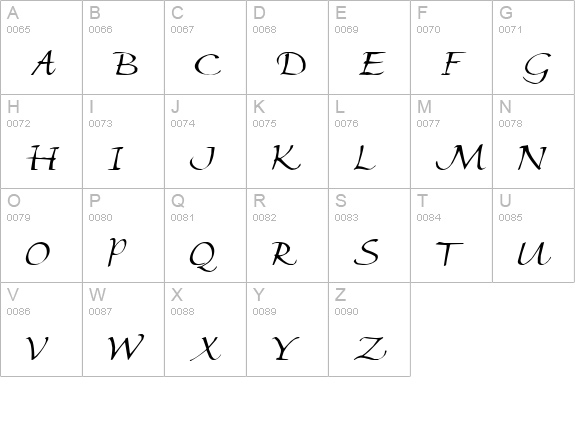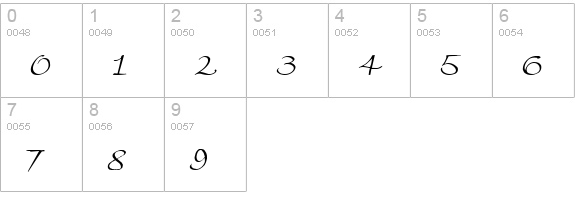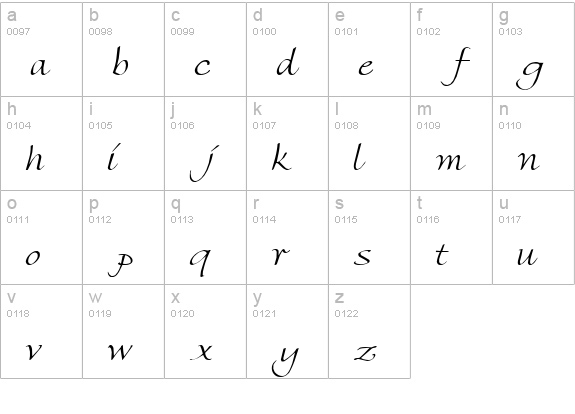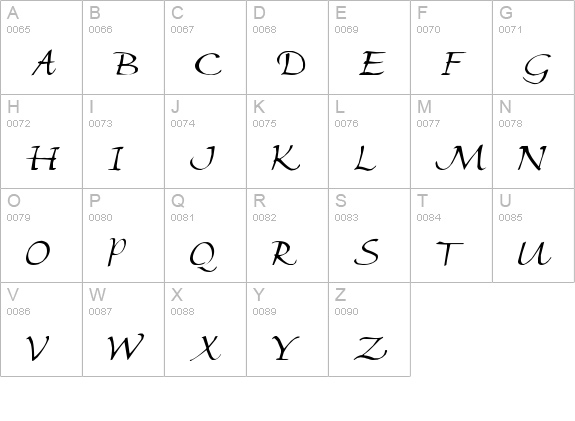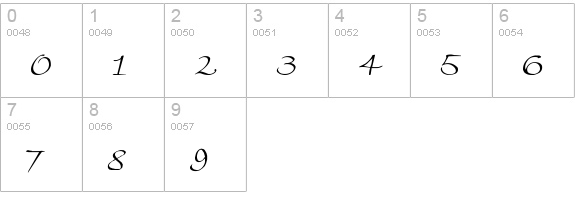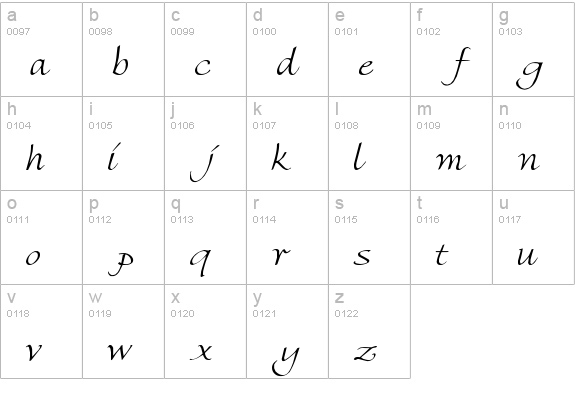
Cursive Normal is the standard, neutral variant in the Cursive typeface family \xE2\x80\x94 well suited to general body text, paragraphs, and standard typographic work.
Cursive Normal font is a beautifully elegant typeface that exudes sophistication and charm. Its flowing, cursive style adds a touch of refinement to any project, making it perfect for invitations, greeting cards, and other creative designs. The gentle curves and graceful strokes of Cursive Normal create a sense of fluidity and grace, making it a versatile choice for both formal and casual applications. Best of all, Cursive Normal font is available for free download at FontsMarket.com. This means you can easily add this stylish and versatile font to your collection without any cost. Whether you're a designer looking to enhance your projects or someone who simply appreciates the beauty of calligraphy-inspired fonts, Cursive Normal is sure to make a lasting impression. Download it today and elevate your designs with this timeless and classic typeface.